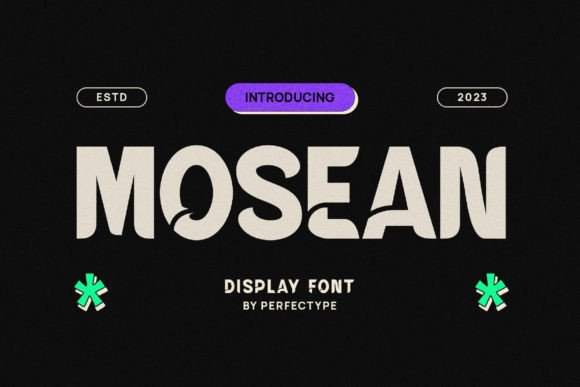
Introducing Mosean Font, the Epitome of Precision and Allure
Journey into the world of Mosean Font, a sans serif masterpiece born from the fusion of diverse inspirations, seamlessly blended to create a symphony of visual harmony. This meticulously crafted typeface dances with symmetry and balance, its every contour and curve a testament to the pursuit of perfection.
Unleash the Power of Contrast and Elegance
Within Mosean Font's framework lies a captivating interplay of contrasts, where delicate strokes meet bold accents, and subtle nuances converge to form a visually striking composition. Each glyph is a testament to the art of minimalism, designed to captivate and inspire without overpowering your message.
A Versatile Gem for Limitless Creativity
Mosean Font stands as a versatile chameleon, effortlessly adapting to a myriad of creative endeavors. Its inherent elegance lends itself to brochures, where sophistication reigns supreme. Videos and advertisements come alive with its dynamic presence, while logos and branding bask in its aura of distinction.
From the pages of magazines to the allure of posters, Mosean Font weaves its enchanting spell, transforming words into captivating expressions. Layout designs find solace in its balanced structure, while post templates and games discover a vibrant new dimension.
Immerse Yourself in a World of Visual Symphony
Mosean Font beckons you into a world where design flourishes, where creativity knows no bounds. Its rhythmic flow invites you to dance with words and colors, to weave tales that resonate with emotion and ignite imaginations.
Embark on a Journey of Design Excellence
Embrace Mosean Font, a font that transcends the ordinary, elevating your creations to new heights of visual brilliance. Let its inherent beauty captivate your audience, leaving them mesmerized by the eloquence of your designs.